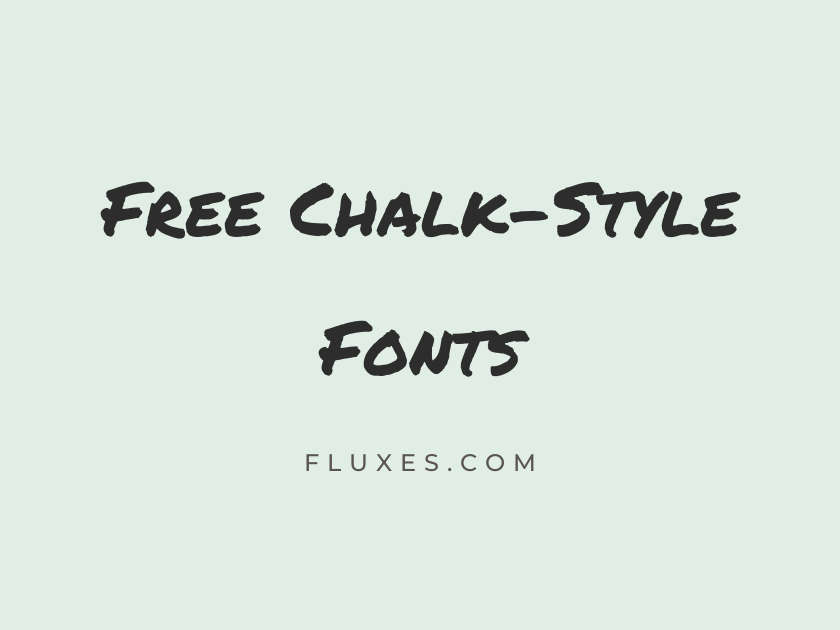
65 Best Free Chalk-Style Fonts
Chalk-style fonts sit at a fun crossroads of nostalgia and craft: think coffee shop sandwich boards, farmhouse kitchen signs, classroom bulletin boards, and hand-lettered wedding welcome signs. Some of these free Google Fonts genuinely mimic the gritty, dusty texture of real chalk on slate, while others simply carry the loose, hand-drawn spirit that reads as “chalkboard” the moment you set it in white or pastel on a dark background.
Whether you’re designing a restaurant menu, a bakery logo, seasonal social graphics, or classroom decor, there’s a wide range of free chalkboard and hand-lettered fonts here, from literal chalk-dust textures to clean casual scripts that pair beautifully with them.
1. Permanent Marker
This is the font most people picture when they hear “chalkboard menu.” The thick, confident marker strokes read clearly from across a shop, which is exactly why it shows up on so many cafe boards and bakery signs.
It works best in short bursts, headlines, prices, single words, rather than long paragraphs, where its bulk can feel heavy.
2. Caveat
A versatile, everyday script that looks like a quick, confident note scrawled with a felt pen. Its restrained looping and even rhythm make it legible enough for captions and pull quotes, not just decorative headlines.
3. Caveat Brush
The brush-tipped sibling of Caveat, with thicker, inkier strokes that feel closer to a soft chalk marker than a ballpoint pen.
4. Kalam
Warm and slightly bouncy, Kalam has a natural, unforced handwriting quality that avoids feeling too polished. Its bold weight holds up nicely on colored backgrounds and classroom-style graphics.
5. Gochi Hand
A childlike scrawl with round, slightly wobbly letterforms, perfect for playful labels, kids’ menus, or anything that wants a hand-drawn, unpolished charm.
6. Shadows Into Light
Light, airy, and casual, this script feels like a quick signature rather than careful lettering. It can thin out and lose clarity at very small sizes, so save it for headlines and short lines.
7. Shadows Into Light Two
A slightly bolder, more compact cousin of the original, with the same casual, unhurried feel but a touch more presence on the page.
8. Architects Daughter
Modeled after a drafting hand, this one carries a technical, blueprint-adjacent charm. It suits DIY signage, craft blogs, and anything with a hands-on, workshop feel.
9. Just Another Hand
Condensed and slightly hurried-looking, as if jotted in a hurry between customers. Good for tight spaces where a full-width script would not fit.
10. Covered By Your Grace
Rounded and gentle, this script feels closer to a handwritten invitation than a sandwich board, which makes it a lovely choice for chalkboard-style wedding welcome signs.
11. Coming Soon
Bouncy and upbeat, with a slight forward lean that gives it real energy. It reads as friendly and informal rather than elegant.
12. Homemade Apple
A loose, fluid cursive with real personality, evoking the loopy handwriting on a recipe card. It pairs nicely with rustic, farmhouse-style branding.
13. Nanum Pen Script
A thin, flowing pen script originally designed for Korean, with a graceful, unhurried quality. It reads delicately, so give it room and generous letter spacing.
14. Nanum Brush Script
Thicker and more expressive than its pen-script sibling, with brush strokes that feel closer to a soft chalk marker on a dark board.
15. Sriracha
Condensed and slightly rustic, this script has an easy informality that suits food packaging, market stalls, and casual menu headers.
16. Rock Salt
Genuinely gritty and uneven, closer to a stick of chalk dragged across rough slate than a smooth marker script. Its rawness works well for temporary sale signs and rustic branding, though it can feel cluttered in long stretches of text.
17. Walter Turncoat
An uneven, slightly wobbly baseline gives this one an authentic, off-the-cuff classroom feel, as though written mid-lecture.
18. Schoolbell
On the web, chalk fonts read best in white or cream on a dark, textured background, ideally with a touch of extra letter spacing to keep loose scripts from feeling cramped.
Whatever the project, from a bakery’s seasonal specials board to a wedding welcome sign, there’s enough range here to capture that authentic, hand-drawn chalkboard feeling without ever touching a paid font license.